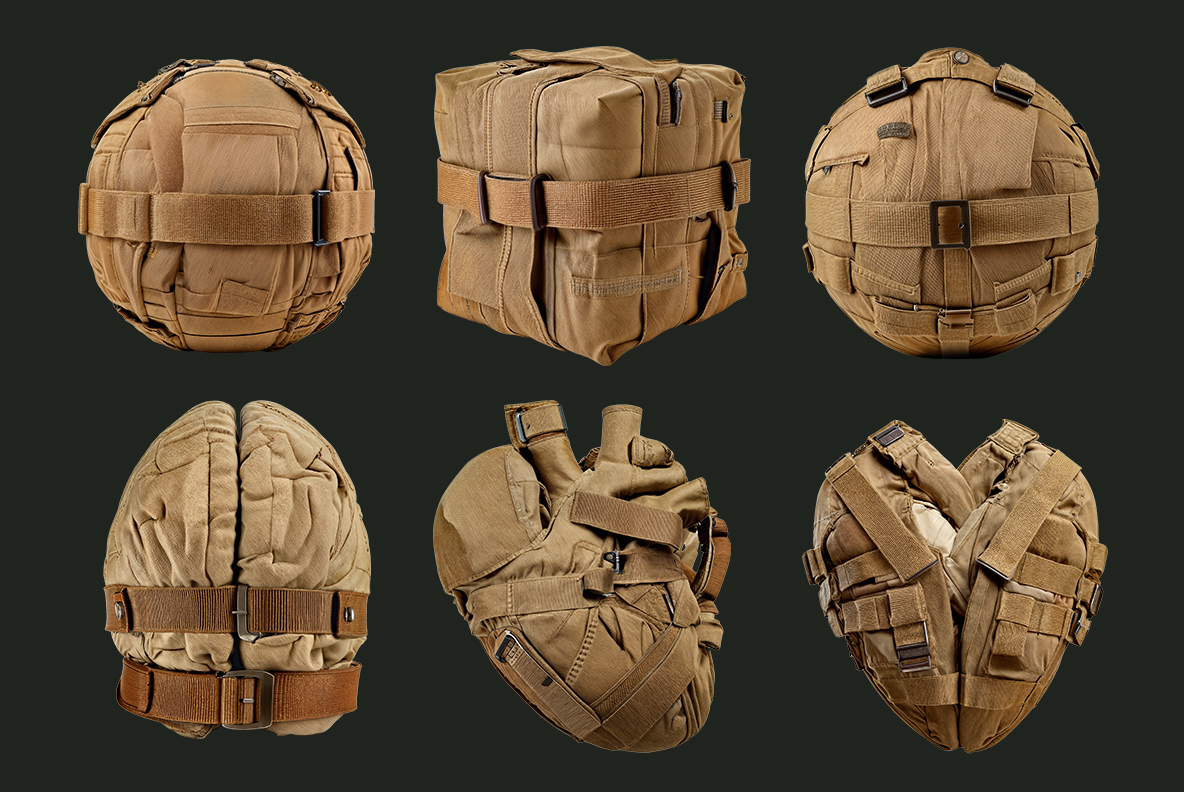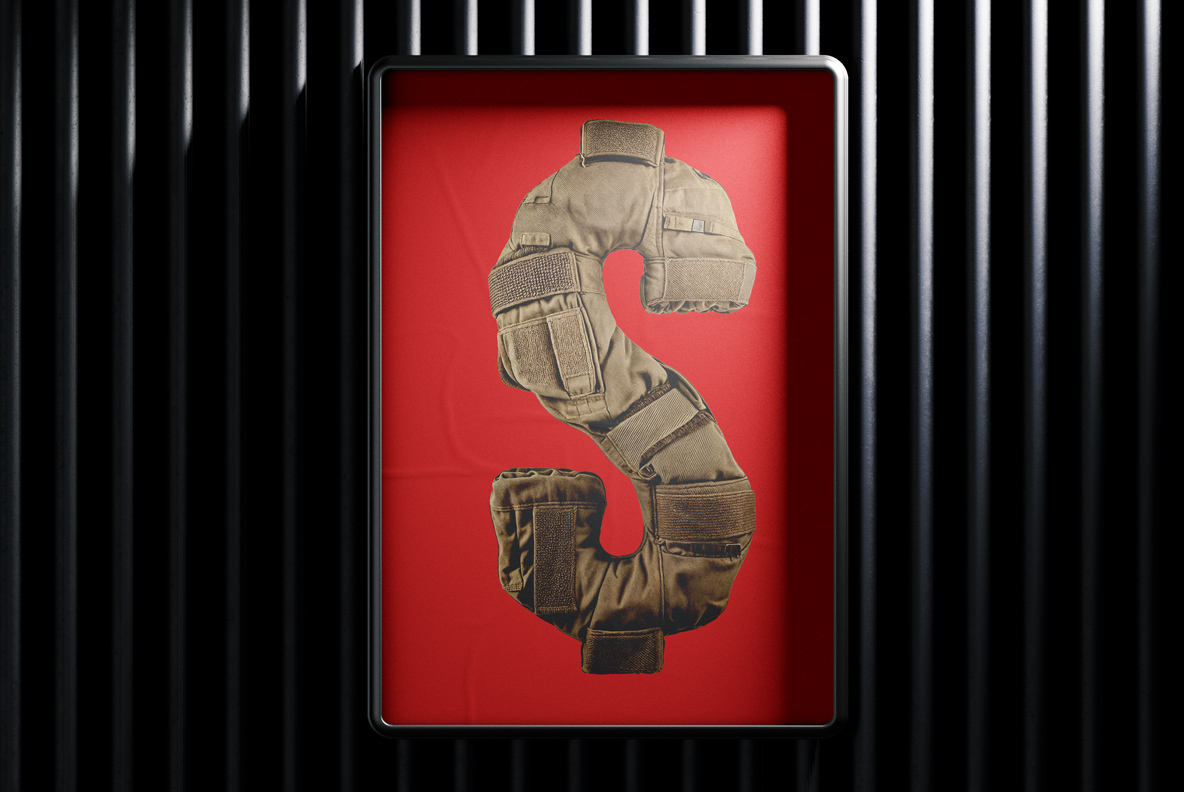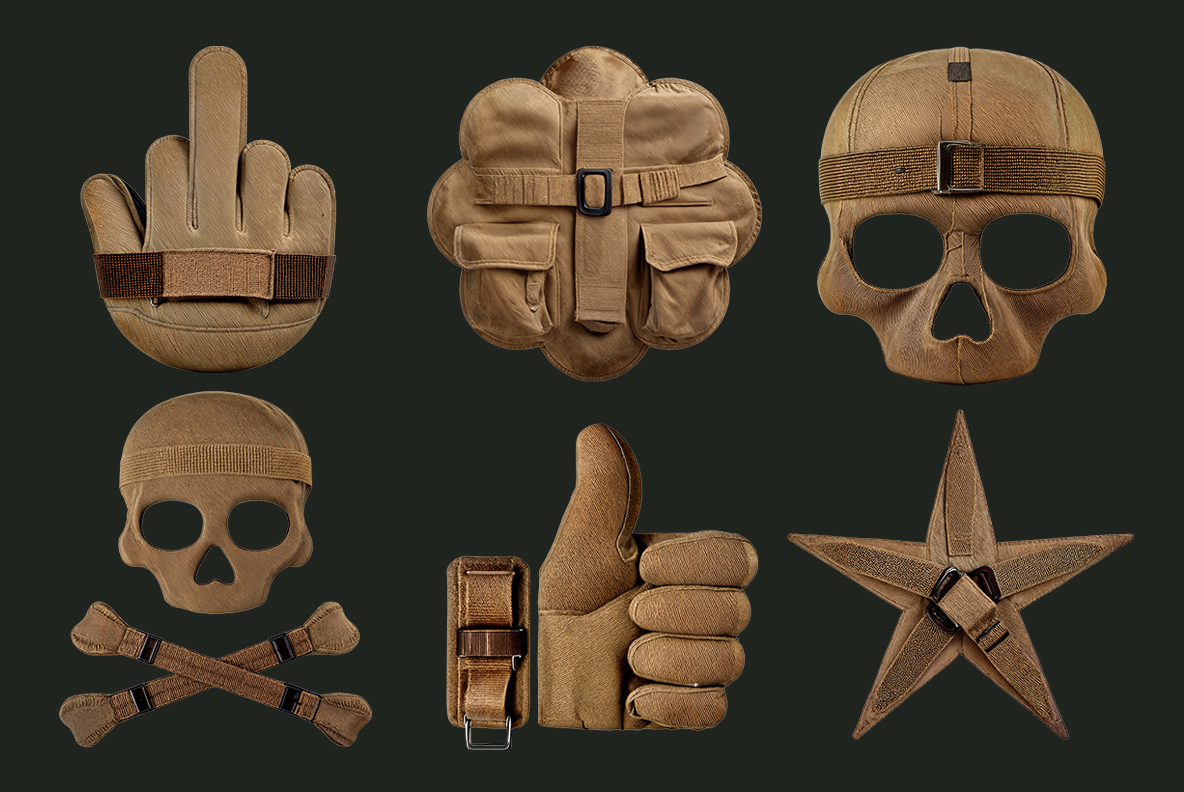
Military Font. Camouflage Your Weak Typography
The Military Font marches onto the design battlefield fully armed — with straps, stitches, and unapologetic attitude. Built from rugged fabric and tactical belts, it’s typography in uniform. Strong, disciplined, but with a wink — ready to serve in your boldest creative missions and stylish design campaigns.
This Font Has Seen Things You Wouldn’t Believe
Attention, designer! You’ve just discovered the typographic equivalent of a drill sergeant — strict, stylish, and slightly sarcastic. Handmadefont’s Military Font is not your typical pretty-boy typeface that just sits on your hard drive looking elegant and harmless. No, sir. This font has been through typography boot camp, crawled through mud made of Pantone 448C, and emerged as a battle-hardened hero of design.
Every letter in Military Font has been handcrafted from real military-grade fabric, belts, and tactical straps. These are not just characters — these are survivors. They’ve seen things in Photoshop you wouldn’t believe. Each stroke carries the grit and weight of a soldier’s uniform, the texture of canvas and Velcro, the discipline of parade lines. Yet behind that tough surface lies a mischievous smile — this is a font that knows how to have fun while keeping its boots polished.
Militaire camouflage alphabet
No Kerning Without Discipline.
Let’s be honest: most fonts want to be loved. Helvetica wants to be liked by everyone. Comic Sans wants to be your goofy friend who overstays his welcome. Times New Roman still thinks it’s the 90s and refuses to move out of your Word documents. But Military Font? It doesn’t need your approval. It commands respect the moment it steps onto your screen. It doesn’t whisper; it orders. It doesn’t decorate; it dominates.
This is the kind of font that could headline a movie poster for a blockbuster called “Typography: First Blood”. It could shout from a propaganda poster or stand silently on a minimalist editorial spread — either way, it looks like it’s ready to deploy at any second. Designers who use it often report an immediate boost in confidence and a sudden urge to iron their shirts.
The Military Font isn’t just a typeface — it’s a full-scale operation in design precision. Crafted in high resolution and locked, loaded, and ready for deployment, it features uppercase letters, numbers, and punctuation standing proud at roughly 800 pixels tall. A full visual lineup of its glyphs comes included, so you know exactly who’s reporting for duty.
Militaire camouflage alphabet
Typography With Tactical Experience.
But don’t be fooled by the tough talk. Military Font also has a soft side. The textures, folds, and shadows of each letter give it a handcrafted warmth. You can almost smell the fabric, feel the tension in the straps, hear the quiet click of a buckle. It’s a rare combination: raw masculinity paired with the finesse of high design. It’s the Clint Eastwood of fonts — grizzled, stoic, and inexplicably cool.
Use it in your poster, headline, or social campaign, and watch how everything else steps aside respectfully. It’s perfect for projects that need an edge — branding, music covers, action-themed titles, or simply reminding your audience that your design doesn’t mess around. And while it looks serious, there’s always a spark of irony in it. Because let’s face it — who makes an entire alphabet out of padded army gear and belts? Only Handmadefont, of course.
Creating Military Font wasn’t an office job. This font was photographed, sculpted, and composed like a piece of art. Real fabric. Real buckles. Real craftsmanship. No digital shortcuts. Each letter was built, adjusted, and shot under professional lighting until it reached the perfect mix of realism and absurdity — a handmade homage to strength, courage, and design madness.
Militaire camouflage alphabet
Make Your Message March in Formation.
There’s something beautiful about that contradiction. The font looks heavy, but it feels light in spirit. It’s intimidating but doesn’t take itself too seriously. It’s as if it’s saying: “Yes, I look like I could stop a tank, but I’d rather headline your next fashion campaign.”
So, what can you do with it? Anything that needs boldness. A poster shouting about freedom, a music video title dripping with attitude, a coffee brand that wants to say “Wake up, soldier!”, or even an art installation about discipline and chaos. Military Font adapts — not because it’s flexible, but because it’s fearless.
In a world full of minimalist sans-serifs and decorative overachievers, Military Font stands tall like a general among cadets. It’s a reminder that design can be brave, physical, and a little bit ridiculous — all at once. So, salute this typeface, polish your concept, and march straight into the next creative campaign.
Because this font doesn’t just make words look strong.
It makes designers look brave.